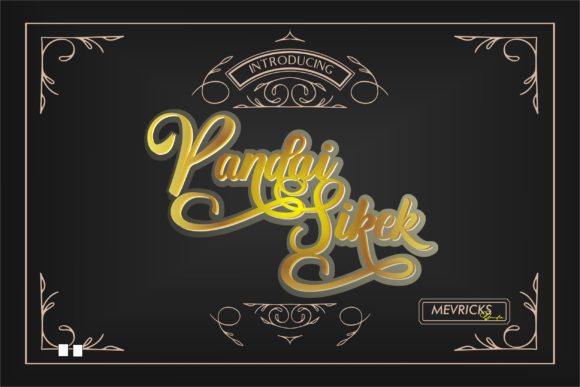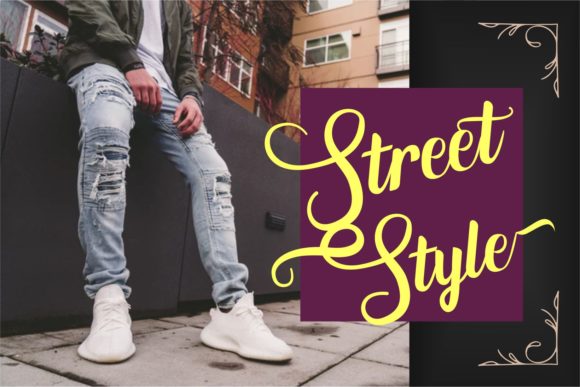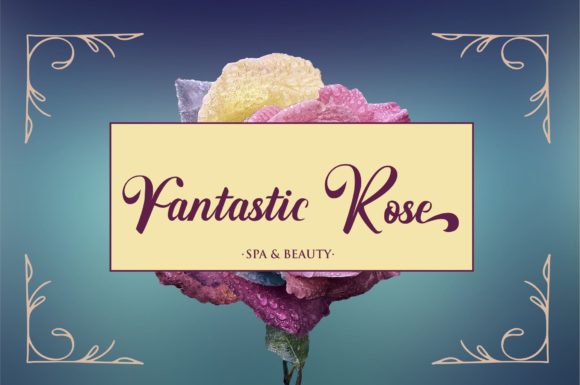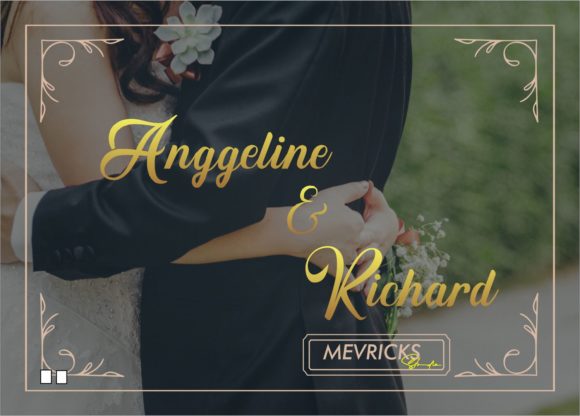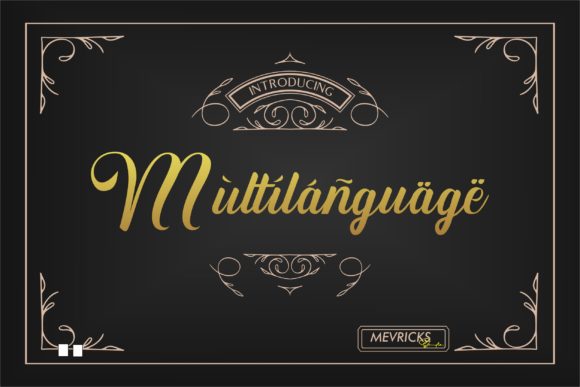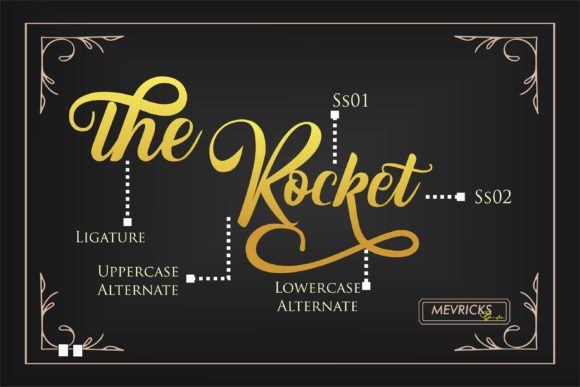
Pandai Sikek Script Font
About Pandai Sikek Script Font
The Pandai Sikek is a handicraft font in the form of woven fabric from West Sumatra, Indonesia.
It has an amazing hand-lettered style and is a must-have for all your designing needs.